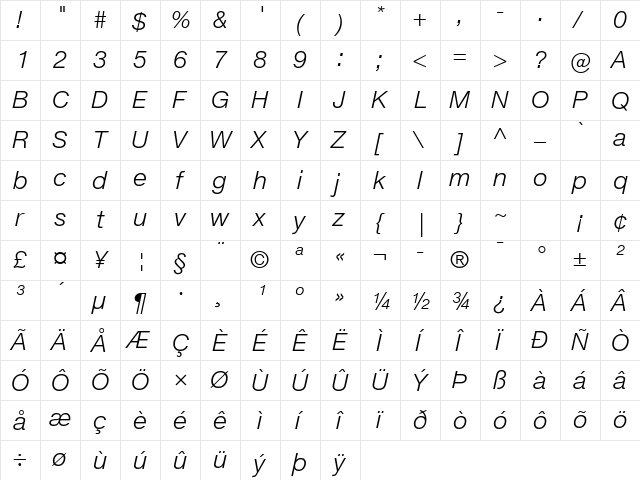
Helvetica Neue ET Pro 46 Light Italic
| Foundry | Linotype GmbH |
| Designer | Linotype Design Studio |
Design Context for Helvetica Neue ET Pro Typeface
Helvetica Neue ET Pro offers clean, dependable letterforms without strong stylistic allegiance, making it a practical choice for designers who need flexibility. Its italic angle brings a sense of urgency and motion to the letterforms. The delicate stroke weight brings airiness and refinement to layouts.